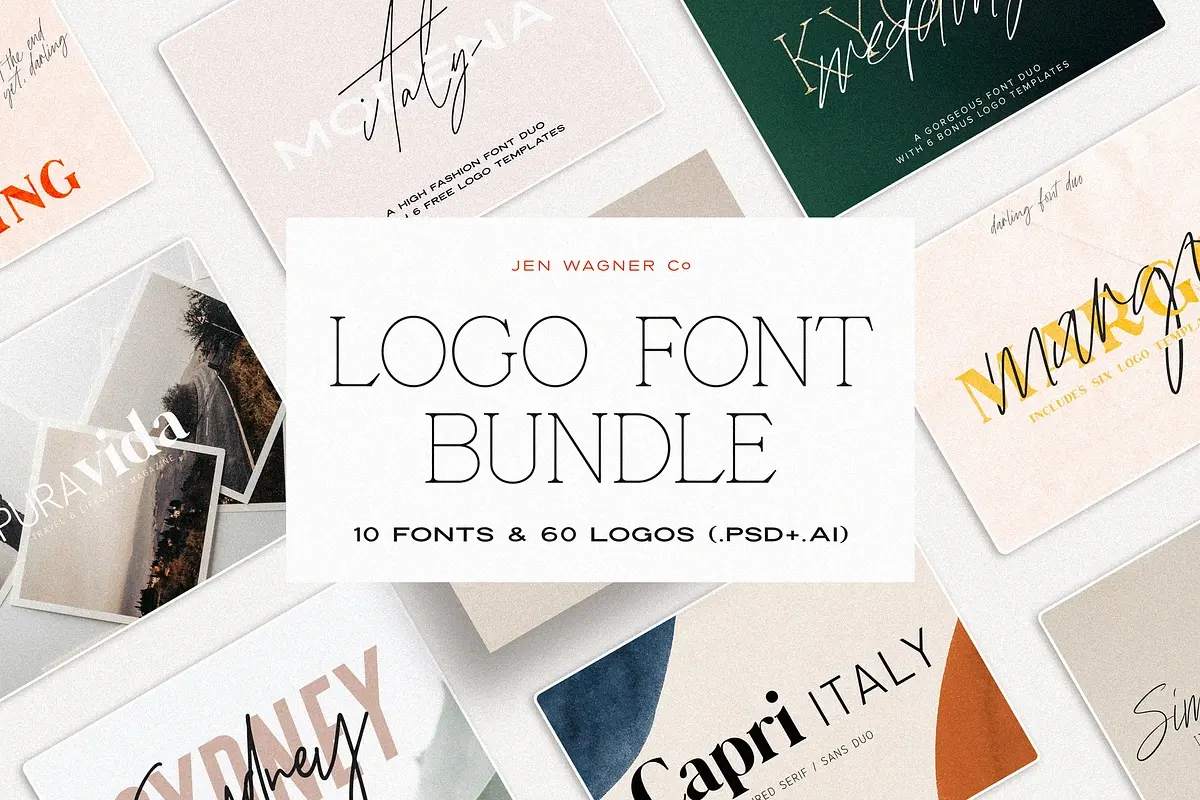
The Logo Font Bundle by Jen Wagner Co. Free Download is a curated collection of premium fonts designed specifically for logo design, branding, and creative projects. With a mix of modern, elegant, and versatile typefaces, this bundle provides everything you need to create stunning, professional logos and brand identities.
This font bundle includes a variety of script, serif, sans-serif, and display fonts that work seamlessly together, giving you the flexibility to craft unique, eye-catching designs. Whether you're designing for a boutique, fashion brand, or any creative venture, these fonts offer both elegance and readability.
The Logo Font Bundle includes uppercase and lowercase letters, numbers, punctuation, and multilingual support, making it a perfect solution for global design projects.